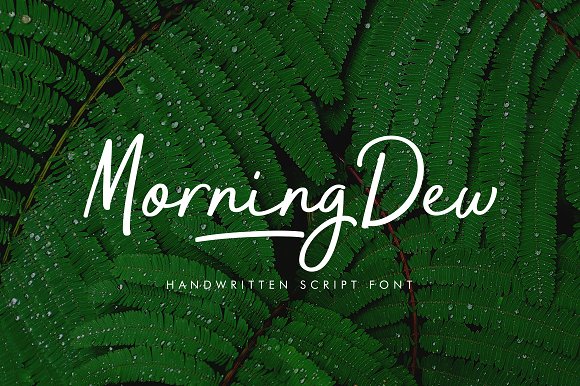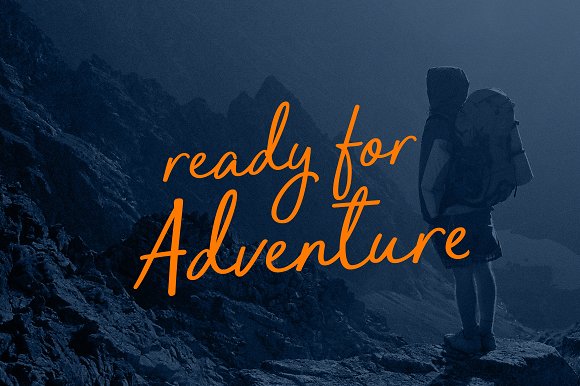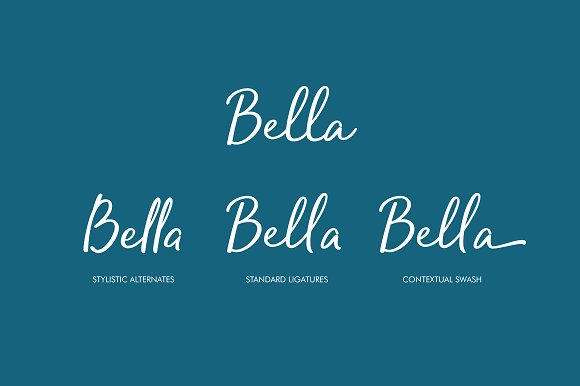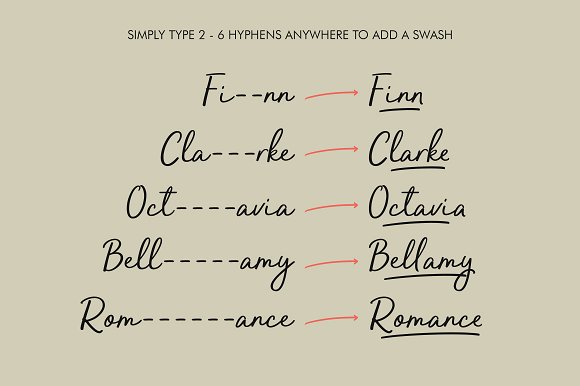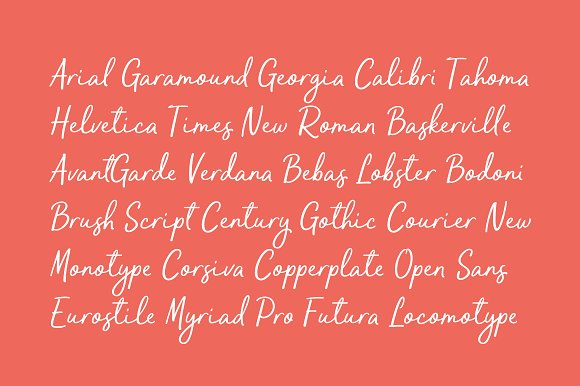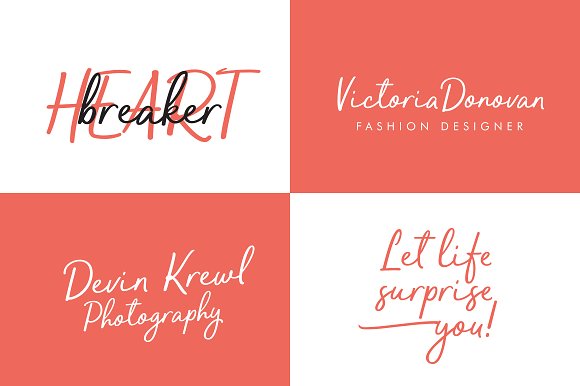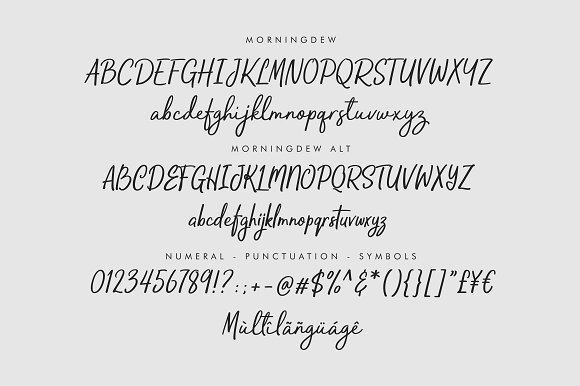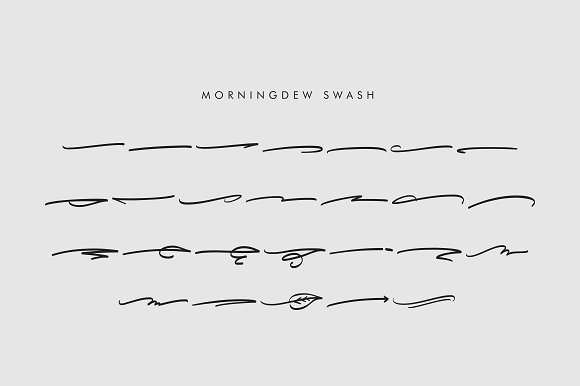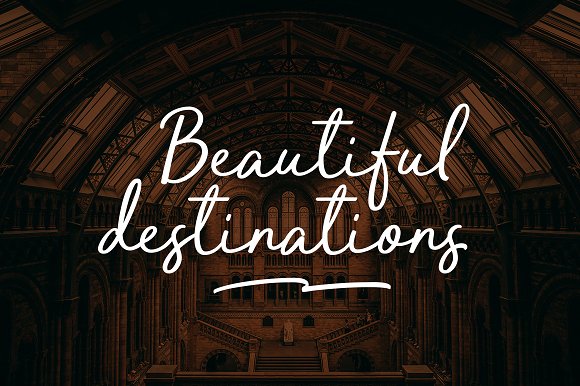
MorningDew Script Font
In a beautiful morning, when silence creates imagination, and dew comes in droves to greet the world with vigor and vitality. Pen tucked between fingers, dances and creates poems of love for all mankind.
Morning dew tells the story of a handwritten font which someday will stitch your heart with warmth and tenderness. It comes specifically to represent an expression of your feeling that has been stored so deep within the soul.